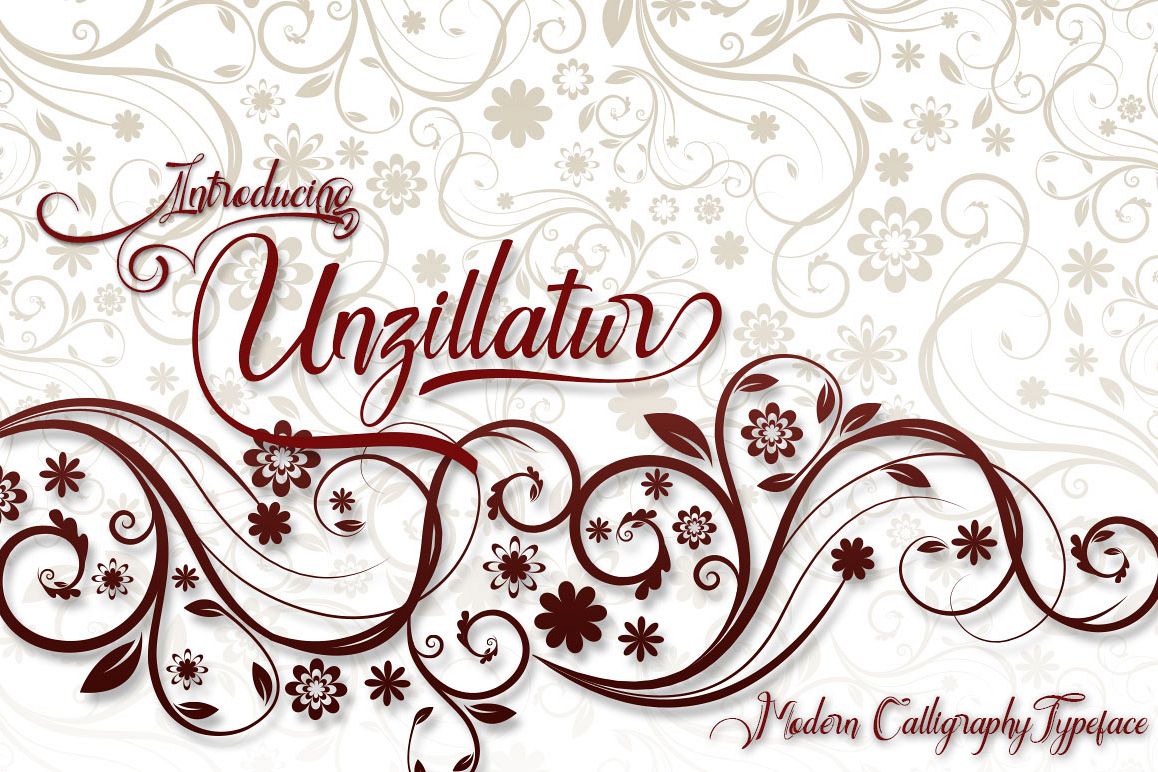
Unzillatur
Unzillatur - a new fresh modern calligraphy font. Very suitable for greeting cards, branding materials, business cards, quotes, posters, and more!
The Features of this fonts is:
• Standart ligatures